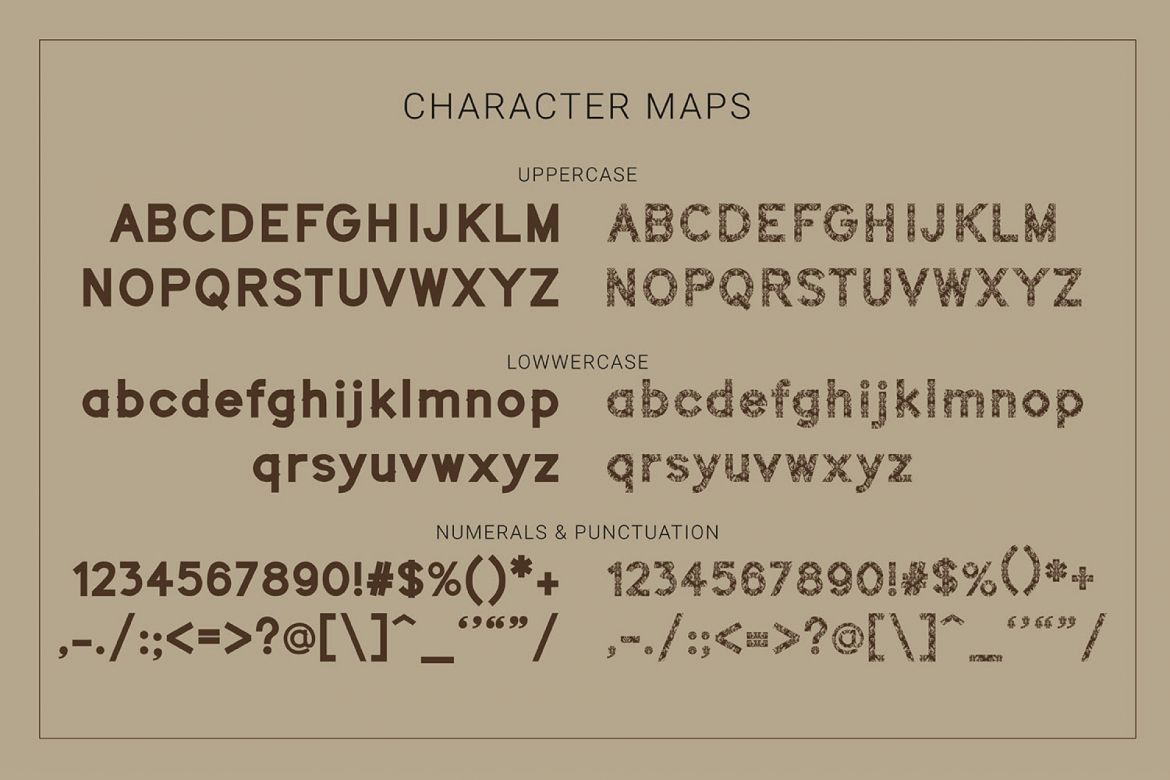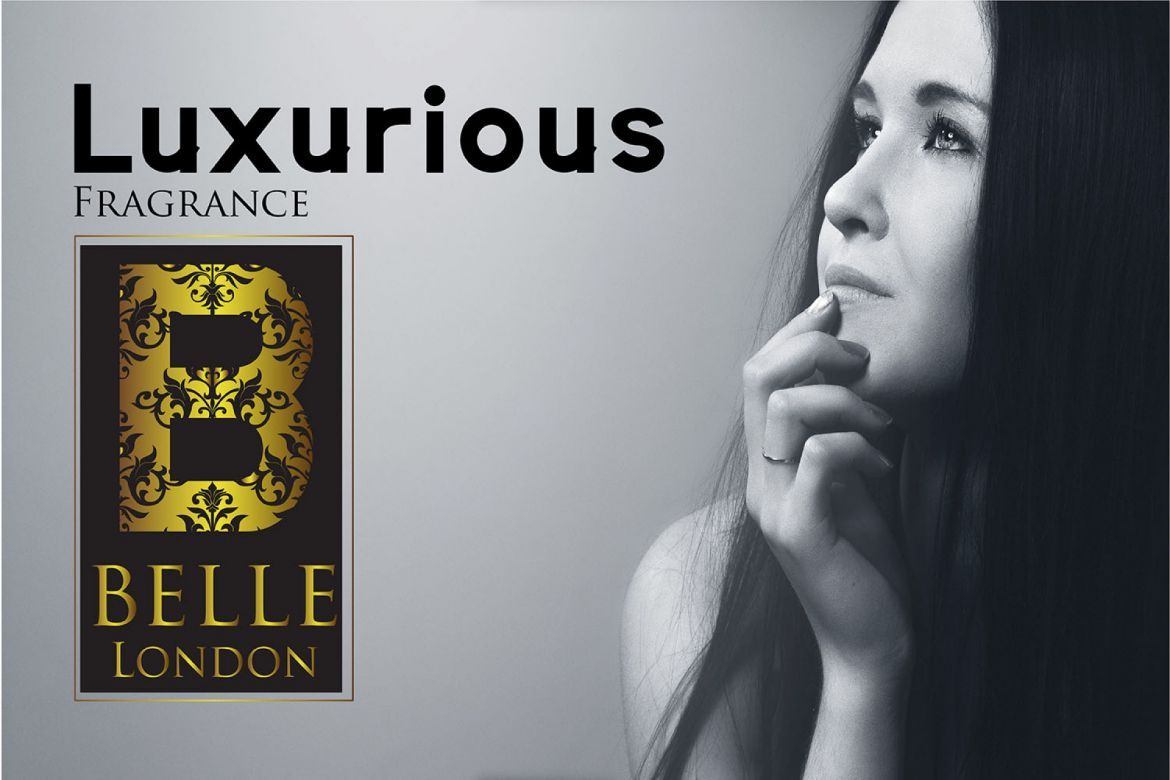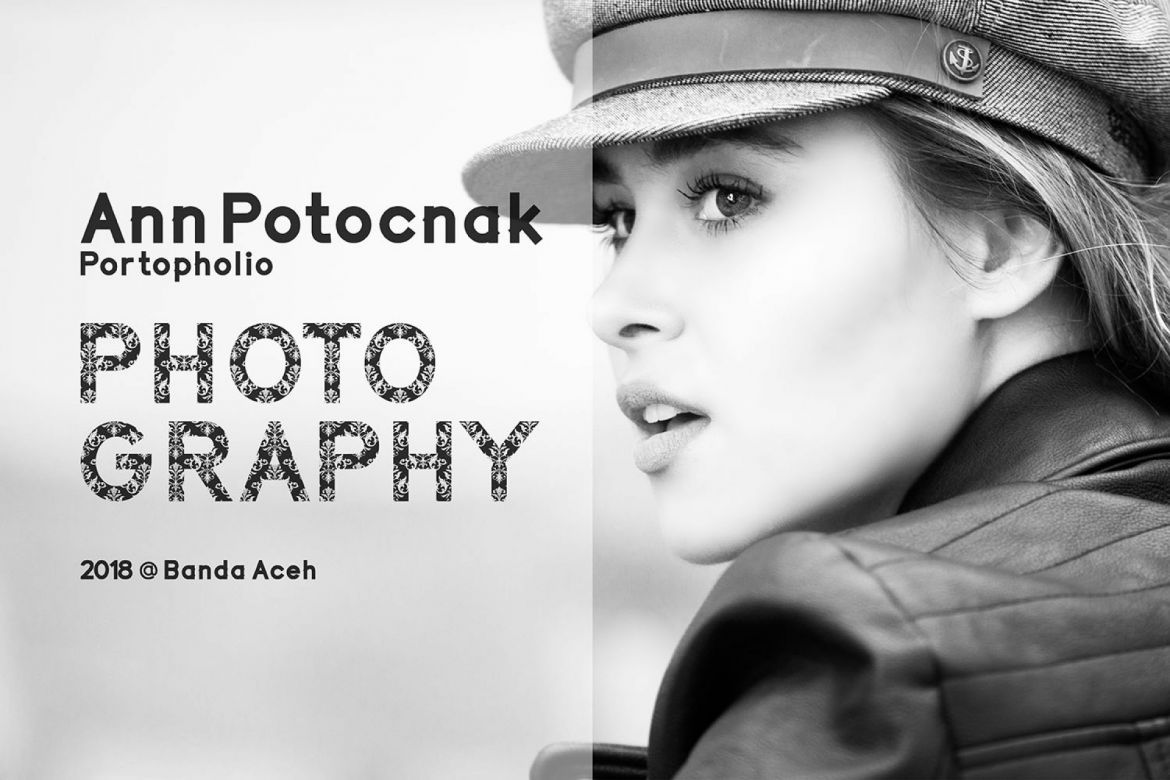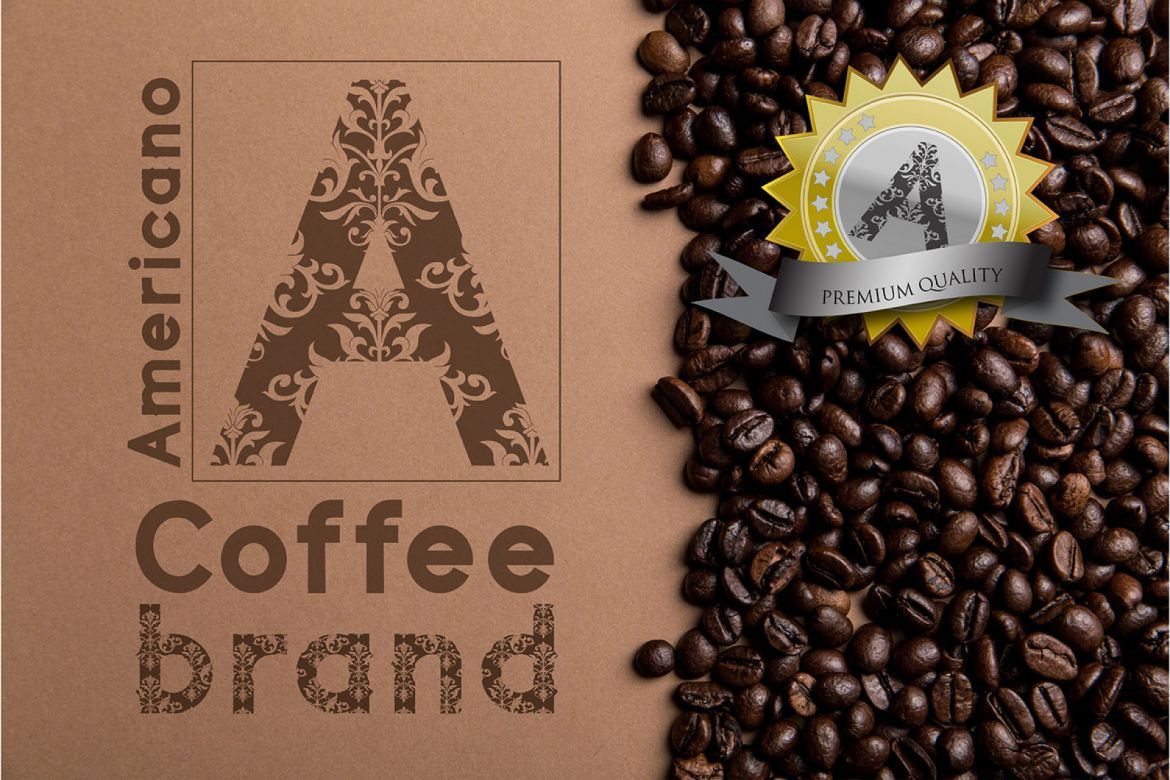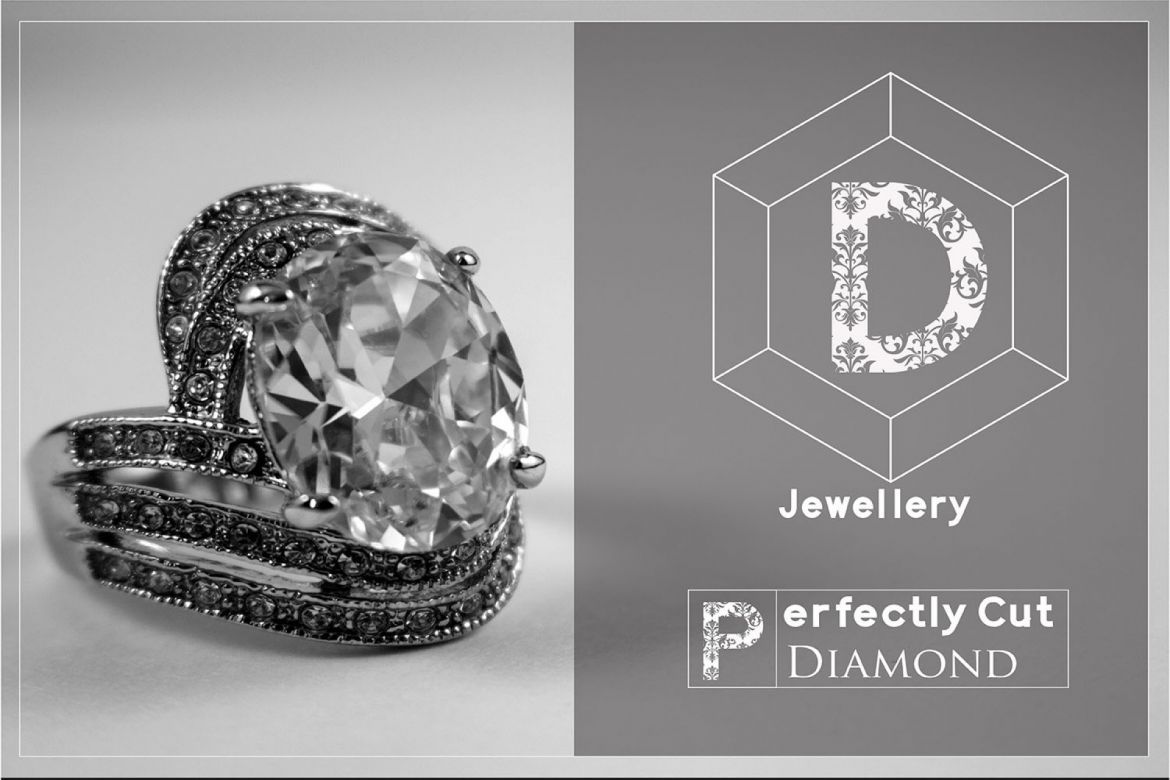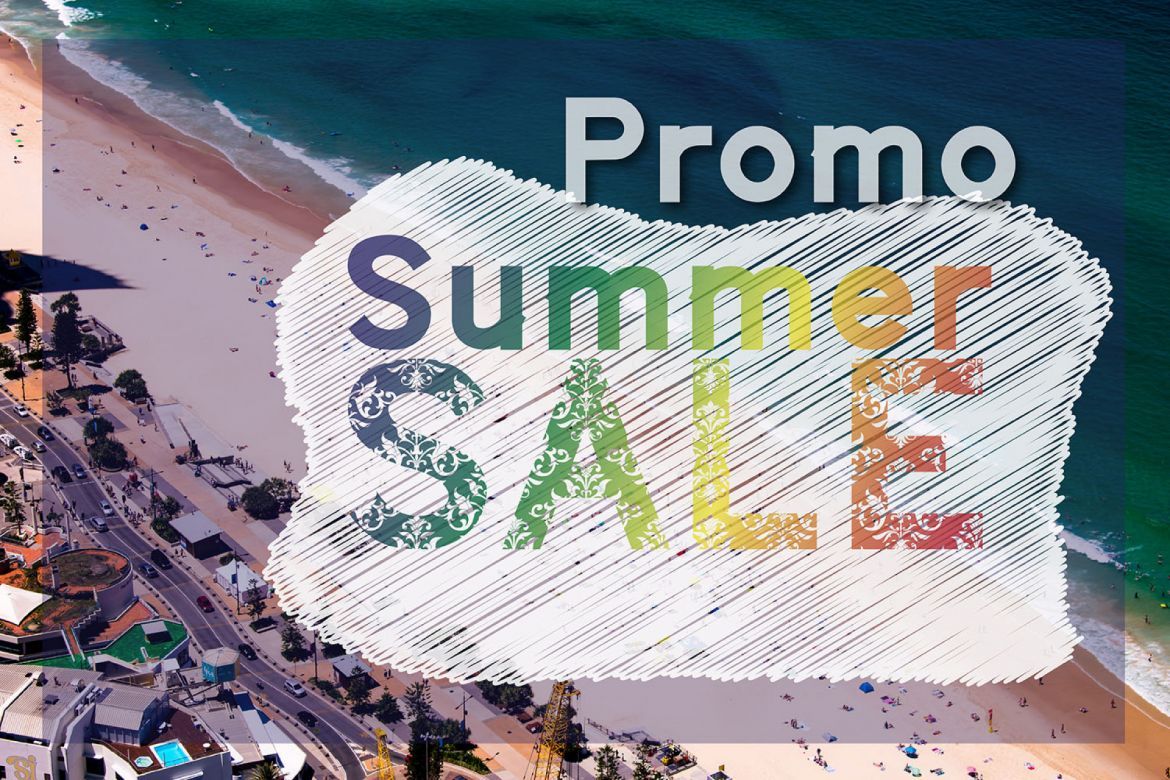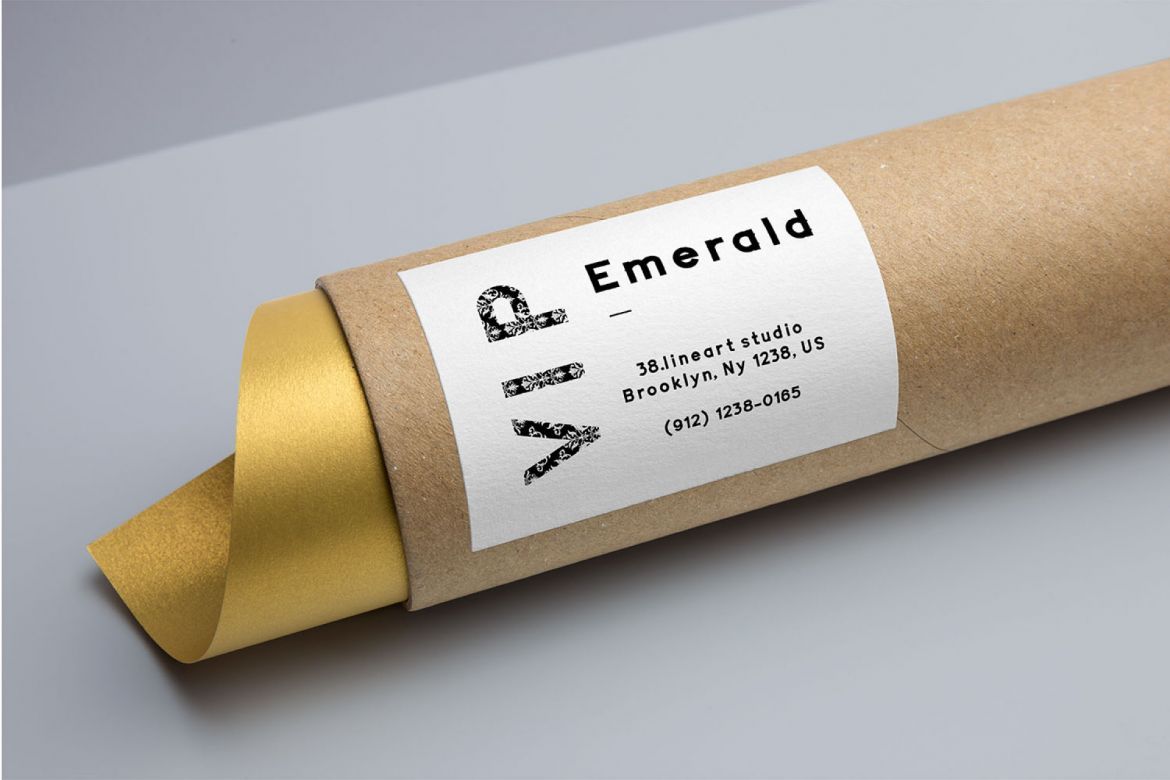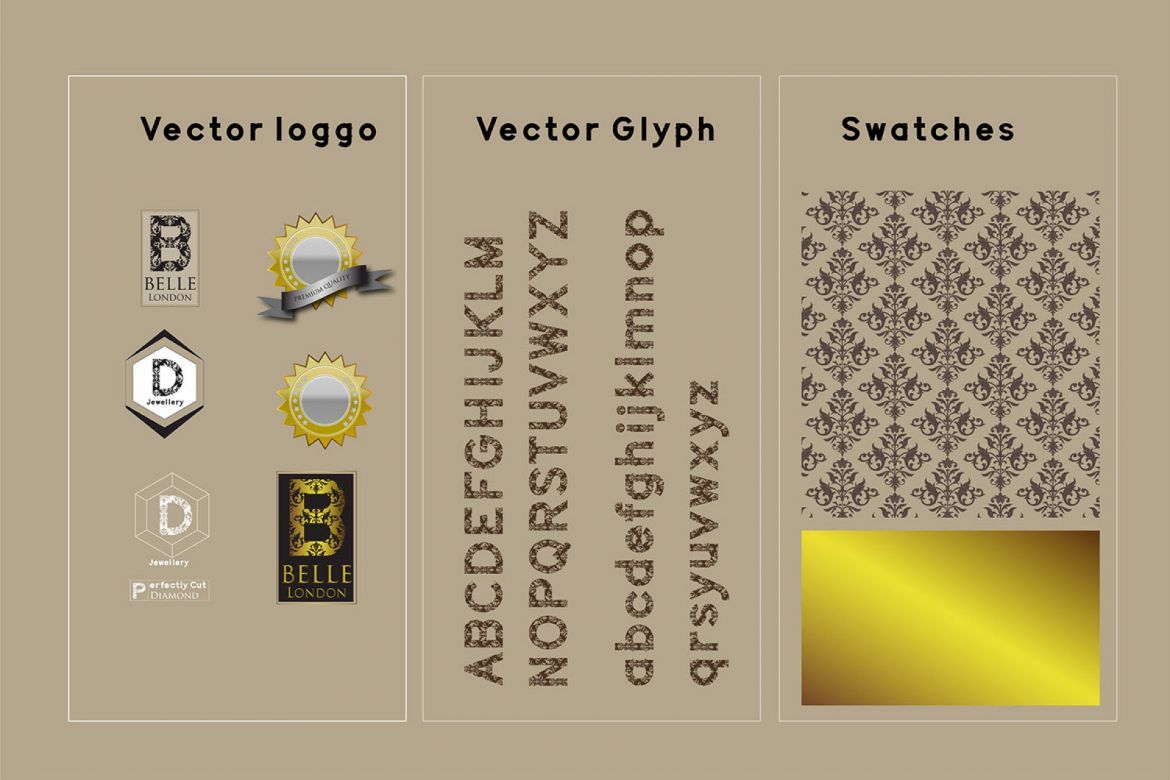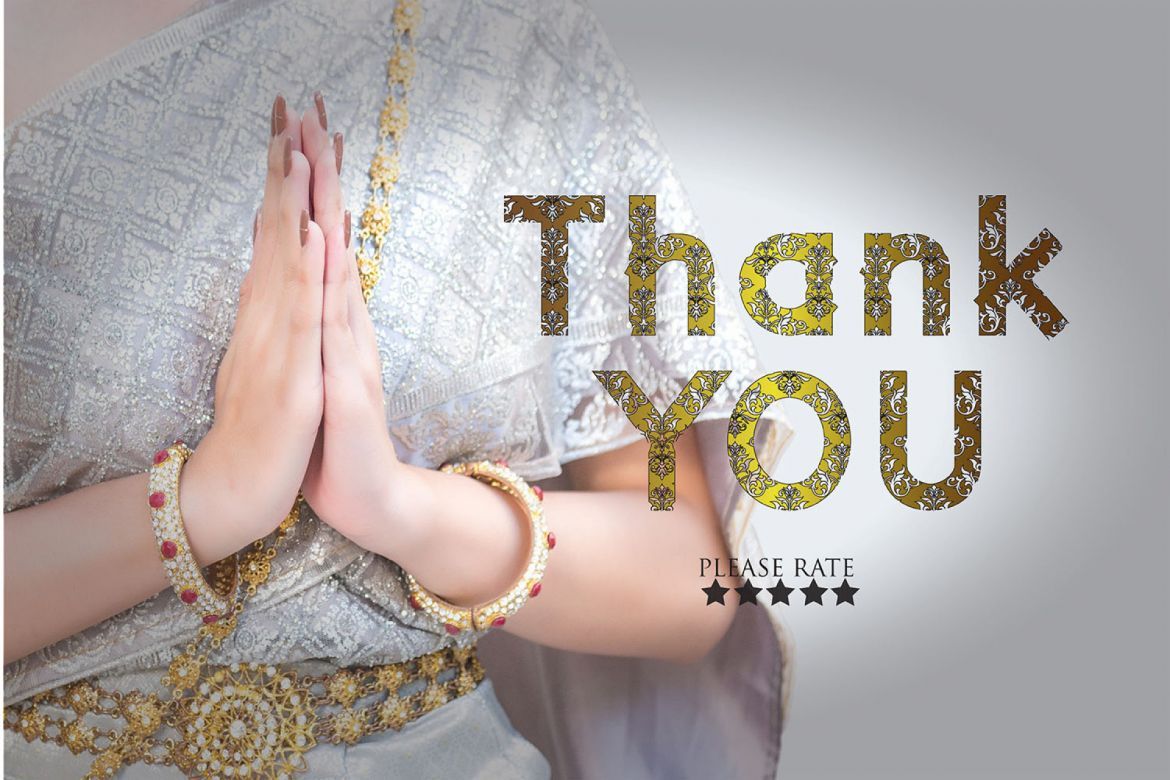
Emerald Display Font
Emerald is a stunning classical, layered decorative font that will give all your projects an incredibly luxurious feel. This font was crafted to invoke a sense of nostalgia for yesteryear, and comes in two styles so you can combine or use them separately for amazing resulting typographic designs.
• carefully crafted
• unique display font